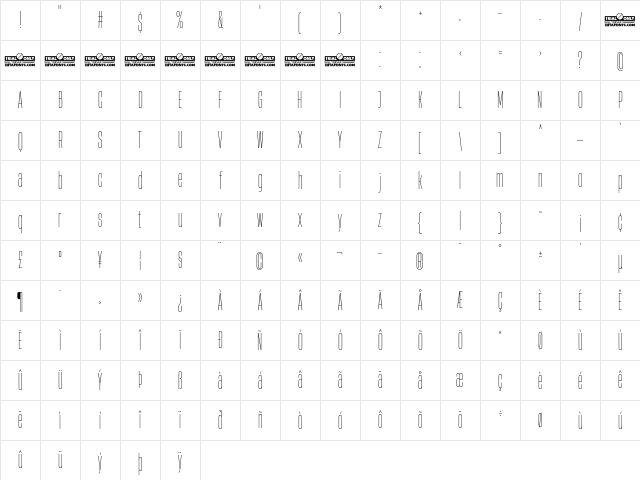
Heading Now Trial 11 Thin Free Font
Heading Now Trial 11 Thin
Style: 11 Thin
Foundry: Studio Kmzero & Zetafonts
Designer: Francesco Canovaro
Year: 2021 (Mon, 12th Apr 2021)
Complete Heading Now Trial 11 Thin glyph index. Displaying only characters natively supported by Heading Now Trial 11 Thin font.
Design Context for Heading Now Trial
Heading Now Trial is a composed and adaptable typeface that performs quietly and consistently across a wide range of design contexts. Its slender proportions lend an understated elegance to any composition.
Who designed the Heading Now Trial 11 Thin font?
This font was published by Studio Kmzero & Zetafonts. Check the technical specs section for copyright and designer details.